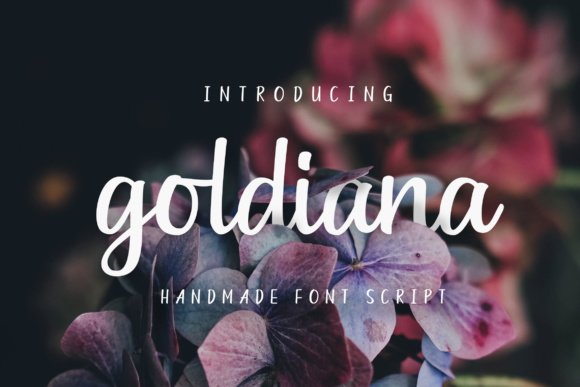
Unleash Your Creative Potential with the Goldiana Script Font
Have you ever sat at your desk, staring at a blank page, waiting for inspiration to strike? You’re not alone. Many designers know the frustration of trying to bring a vision to life, only to find that the right tool is missing. That’s where the Goldiana Script Font comes in – a beautiful, hand-written script font that’s perfect for logos, headers, titles, prints, and more.
Designed to add a touch of elegance and sophistication to any design, Goldiana is a valuable addition to any designer’s toolkit. Its versatility and unique style make it a go-to choice for creatives looking to take their typography to the next level. Whether you’re working on a branding project or simply want to add some flair to a print design, Goldiana Script Font is the perfect solution.
- Unique Characteristics: Distinctive, elegant script font with a touch of sophistication and luxury, making it ideal for formal and high-end designs.
Designer Review: Goldiana Script Font
Overall, I was pleasantly surprised by Goldiana Script Font. Here are some of its strengths:
- ✨ Elegant and sophisticated design that evokes a sense of luxury and refinement.
- ✨ Beautiful connections between letters, making it a joy to read.
- ✨ Excellent for branding and marketing materials where you want to convey high-end quality.
However, as with any font, there are some limitations:
- ⚠️ Limited character set, which may not be ideal for languages that require a wider range of characters.
- ⚠️ Not suitable for body text, as it can be quite ornate and may be difficult to read in large quantities.
- ⚠️ Some characters may not be compatible with certain operating systems or software.
Overall, I think Goldiana Script Font is a beautiful addition to any designer’s toolkit. While it may not be suitable for every project, it’s perfect for those times when you need to add a touch of sophistication and elegance. Just be sure to use it judiciously and in conjunction with a clear and legible font for body text.
Goldiana Script Font: A Practical Application Guide
Tips for Getting the Most Out of Goldiana Script Font
To get the most out of Goldiana Script Font, follow these tips:
- Use the font in combination with other elegant fonts to create a sophisticated look.
- Experiment with different font sizes and colors to achieve the desired emphasis.
- Use the font in headings and titles to add visual interest to your design.
The Goldiana Script Font is ideal for:
- Brand logos and marketing materials.
- Restaurant menus and packaging.
- Use Goldiana Script Font for the main title and headings.
- Pair it with a clean and modern sans-serif font, such as Open Sans, for the body text.
- Add some floral patterns or watercolor designs to give it a whimsical touch.
- Use Goldiana Script Font for the title and headings, and add some decorative elements to give it a handmade feel.
- Pick a background texture or pattern that complements the font, such as a watercolor or a wooden texture.
- Add some ribbons or buttons to give it a more tactile feel.
- Use Goldiana Script Font for the quote and headings.
- Pick a bold and modern font, such as Montserrat, for the background text or the quote’s author.
- Add some minimalist patterns or shapes to give it a clean and modern look.
Q: What is the recommended font size for using the Goldiana Script Font?
The recommended font size for the Goldiana Script Font is between 12pt and 24pt. This size range allows for optimal legibility and readability. However, feel free to experiment with different font sizes to achieve the desired visual effect for your project.